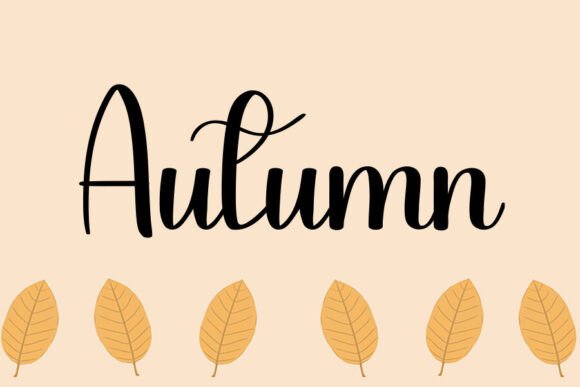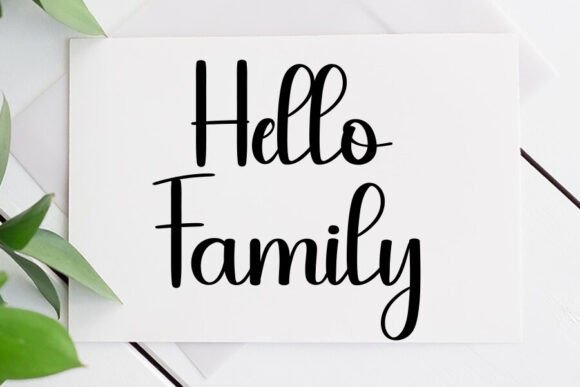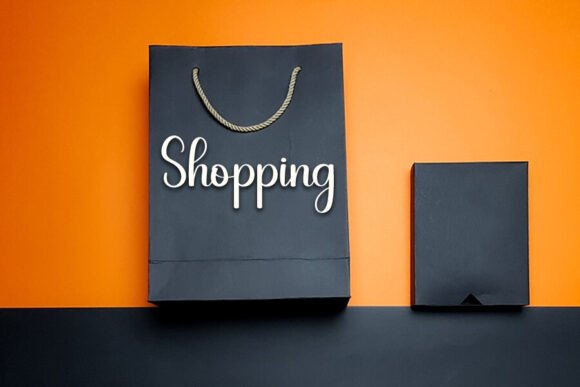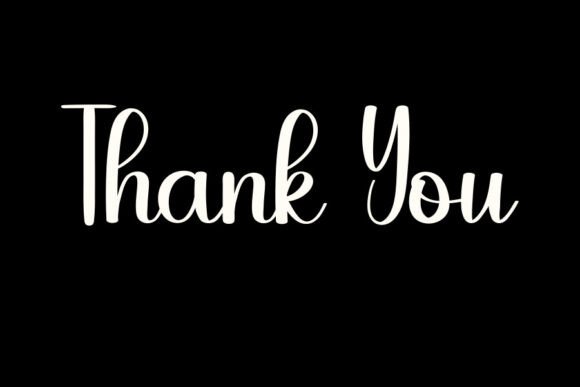
Introducing Cherry Font: The Sweet and Cursive Handwritten Font for Your Design Needs
Are you looking for a font that can add a touch of elegance and whimsy to your designs? Look no further than Cherry Font, a sweet and cursive handwritten font that’s perfect for a variety of design projects. With its gentle curves and playful vibe, Cherry Font is sure to bring a smile to your audience’s faces and leave a lasting impression.
The Characteristics of Cherry Font
Cherry Font is a beautifully crafted handwritten font that’s characterized by its flowing curves and sweet, whimsical feel. Its cursive style gives it a romantic and elegant touch, making it perfect for designs that require a touch of sophistication. At the same time, its playful and casual vibe ensures that it remains approachable and friendly, making it suitable for a wide range of design applications.
What Can You Use Cherry Font For?
Cherry Font is an incredibly versatile font that can be used for a variety of design projects, including:
- Branding: Use Cherry Font to create a unique and memorable brand identity that stands out from the crowd.
- Logo Design: Create a stunning logo that showcases your brand’s personality and style with Cherry Font.
- Wedding Designs: Add a touch of romance and elegance to your wedding designs, including invitations, programs, and decorations.
- Greeting Cards: Create beautiful and heartfelt greeting cards for special occasions, such as birthdays, anniversaries, and holidays.
- Fashion and Lookbook: Use Cherry Font to add a touch of style and sophistication to your fashion designs, lookbooks, and marketing materials.
- Marketing Promotion: Create eye-catching marketing materials, such as flyers, brochures, and posters, that showcase your brand’s personality and style.
Why Choose Cherry Font?
So why choose Cherry Font for your design needs? Here are just a few reasons:
- Unique and Memorable: Cherry Font is a unique and memorable font that’s sure to leave a lasting impression on your audience.
- Elegant and Whimsical: Its elegant and whimsical feel makes it perfect for designs that require a touch of sophistication and playfulness.
- Versatile: Cherry Font is incredibly versatile and can be used for a wide range of design applications.
- Easy to Read: Despite its cursive style, Cherry Font is easy to read and understand, making it perfect for body text and headlines.
Tips for Using Cherry Font Effectively
Here are a few tips for using Cherry Font effectively in your designs:
- Pair it with a Sans-Serif Font: Pair Cherry Font with a sans-serif font to create a beautiful contrast and add visual interest to your designs.
- Use it for Headlines and Titles: Use Cherry Font for headlines and titles to add a touch of elegance and whimsy to your designs.
- Experiment with Colors: Experiment with different colors and textures to add depth and visual interest to your designs.
- Keep it Simple: Don’t overcomplicate your designs. Keep it simple and elegant to let Cherry Font shine.
In conclusion, Cherry Font is a sweet and cursive handwritten font that’s perfect for designers and crafters looking to add a touch of elegance and whimsy to their designs. With its versatile style and wide range of design applications, Cherry Font is sure to become a favorite in your font collection. So why wait? Download Cherry Font today and start creating stunning designs that showcase your brand’s personality and style!